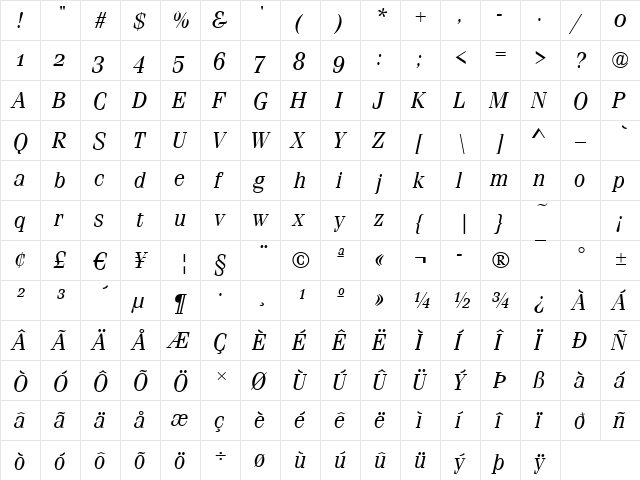
Ferrara-Osf Italic Font Preview
Ferrara-Osf Italic
Ferrara-Osf Italic Font Details
Design Context for Ferrara-Osf Typeface
Ferrara-Osf offers clean, dependable letterforms without strong stylistic allegiance, making it a practical choice for designers who need flexibility. Its italic angle brings a sense of urgency and motion to the letterforms.
Pro Tip: Try Ferrara-Osf for annotation and caption copy alongside an upright companion — the contrast in angle creates a dynamic but ordered typographic system.